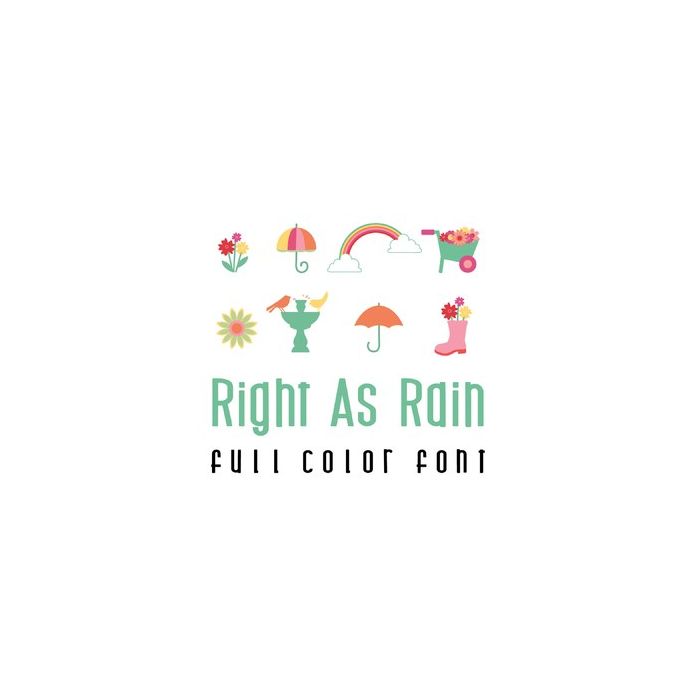
This adorable full color doodlebat font features beautiful flowers, umbrellas, rainbows and all things Spring. Perfect for cards, crafts, gifts, decor, scrap book pages, planner stickers and more!